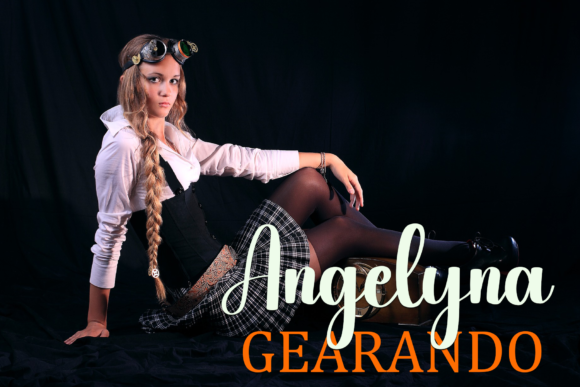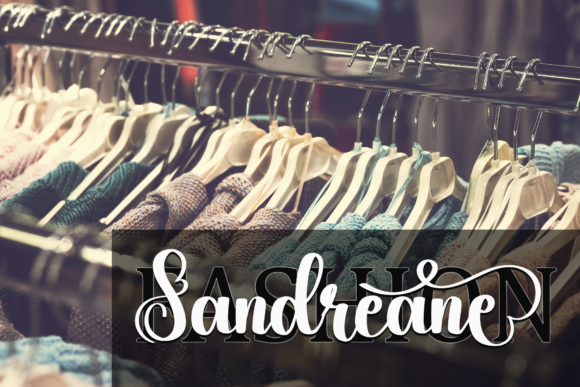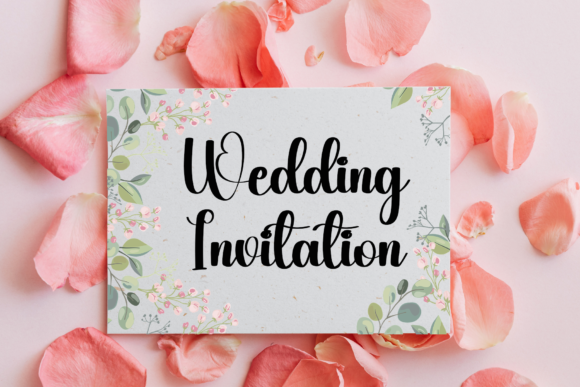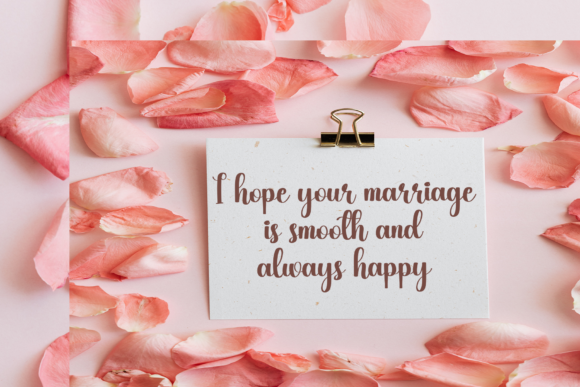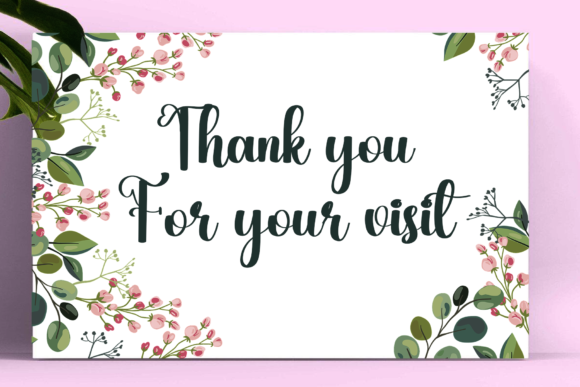
Will You Merry Me Font
About Will You Merry Me Font
Will You Merry Me is a sweet and cursive handwritten font. This gentle font will look gorgeous on a variety of design ideas. It will add a joyful and romantic touch to each of your projects!